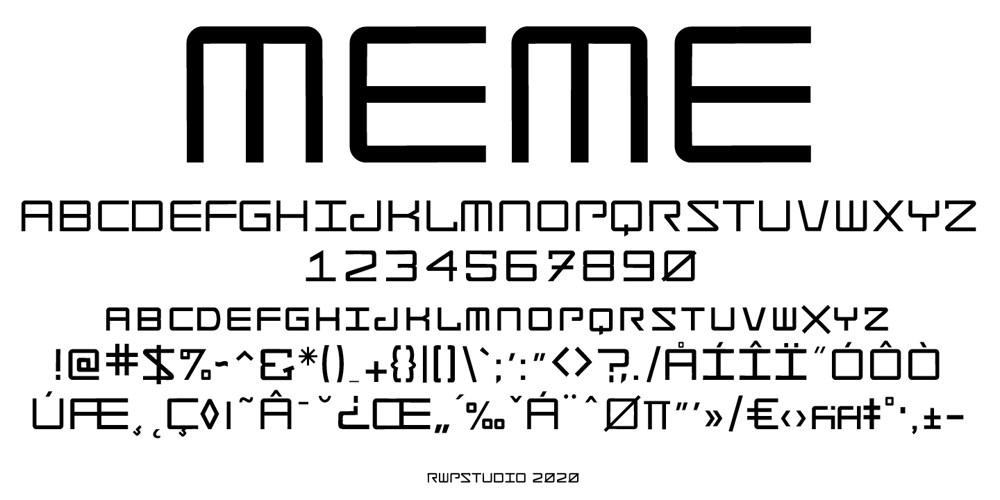
MEME
MEME font
MEME Font Family was designed by Robert Petrick and published by Robert Petrick. MEME contains 1 styles and family package options. “MEME” Regular is a work in progress designed in a square format. It is all Caps with small caps in the lower case. With over 80 design glyphs for you to use creatively. “MEME” is also a great font to add to your futuristic headline fonts, I am adding new characters all the time.